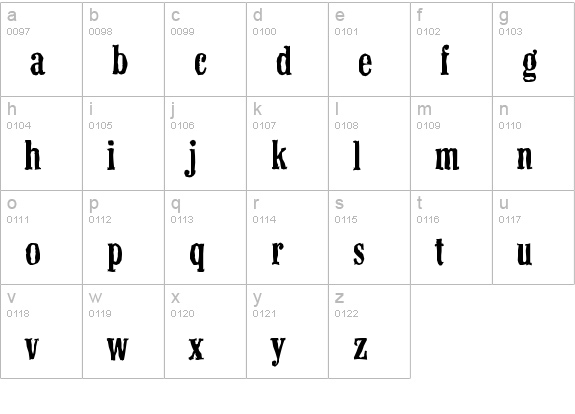
ColonelAntique-Medium-Regular Font Details
ColonelAntique-Medium-Regular is a balanced, medium-weight variant in the ColonelAntique typeface family \xE2\x80\x94 well suited to sub-headlines, navigation, and balanced editorial work.
ColonelAntique-Medium-Regular is a timeless and classic font that exudes elegance and sophistication. Its medium weight strikes the perfect balance between boldness and subtlety, making it suitable for a wide range of design projects. This vintage-inspired typeface carries a sense of nostalgia and charm, transporting viewers to a bygone era. With its clean lines and well-defined serifs, ColonelAntique-Medium-Regular is highly legible and versatile, making it a great choice for both headings and body text. Whether you're working on a branding project, editorial design, or any other creative endeavor, this font will bring a touch of sophistication to your work. Best of all, ColonelAntique-Medium-Regular is freely available for download at FontsMarket.com. You can add this beautiful font to your collection without any cost, making it a valuable resource for designers and creatives looking to elevate their projects with a touch of vintage flair. Don't miss out on the opportunity to enhance your designs with the timeless charm of ColonelAntique-Medium-Regular.